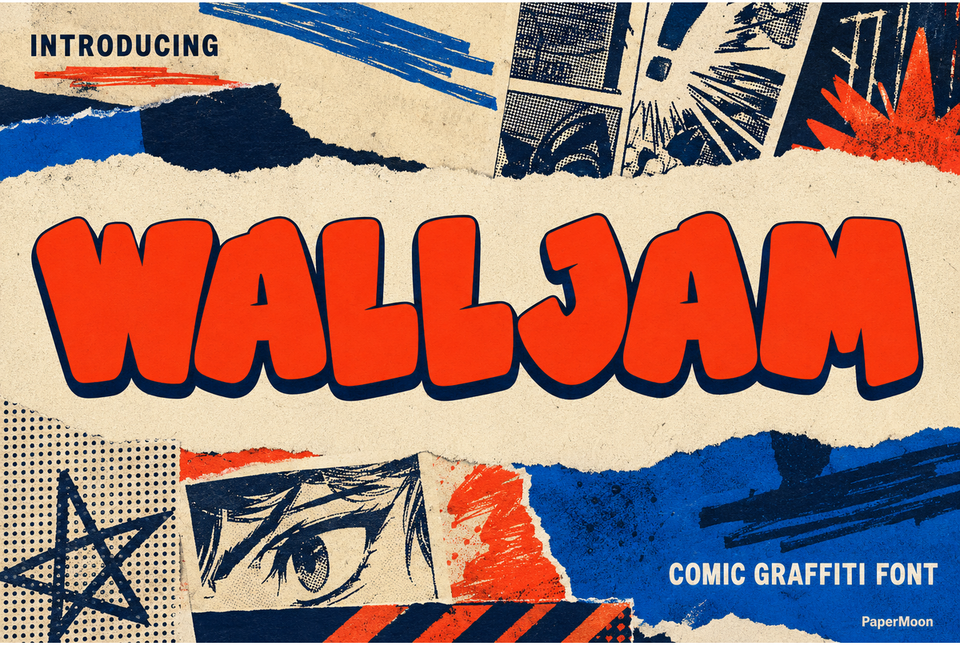
WallJam - Comic Graffiti Display Font Duo with Built-in 3D Shadow
WallJam is a comic graffiti display font duo built for designers who want loud, hand-drawn lettering that still feels friendly. Chunky capitals, a bouncy rhythm, and a marker-influenced energy give every headline the look of a true street art font, while the playful comic-book attitude keeps it charming rather than aggressive. As a street art display font, WallJam works best at poster and banner sizes, where its irregular hand-painted texture can really show.
What it is: WallJam is a font duo in the truest sense: two coordinated styles designed to work together. WallJam Regular is the solid comic book font base, a bold font with high-impact letterforms and an irregular, hand-painted texture that keeps headlines looking handcrafted rather than mechanical. WallJam Shadow is the same lettering with a built-in 3D drop shadow, so this 3d shadow font gives you instant depth in a single pass with no extra effect layers. Stack the shadow style over the regular style for a true dimensional poster look, or use the shadow style alone when you want the pop without the setup work. Every outline was drawn by hand and refined for a consistent, authentic urban graffiti font feel.
Key Features: Each style carries 236 glyphs covering Basic Latin, Latin-1 Supplement, and Western European punctuation, plus common math and currency signs, the numero sign, and the trademark symbol. Standard fi and fl ligatures are built in through OpenType GSUB features, and GPOS kerning keeps letter spacing balanced at any size. The fonts use installable embedding, so they install cleanly on Mac and PC. This is a hand drawn font through and through. A hand drawn display font like this one keeps its personality whether it is set at huge poster scale or small label size, and it is a chunky lettering font that stays readable even in tight spaces.
Applications: As a comic graffiti font and playful display font, WallJam suits projects across almost every format. It shines as a poster font for event flyers and album art, and as a sticker font for die-cut packs and badges. As a streetwear font it gives apparel and merchandise graphics instant attitude, making it a natural streetwear branding font for small labels. It is also a natural kids font for party invitations and classroom projects. A comic book lettering font at heart, it suits comics, zines, and playful branding for small businesses. Game developers can use it as a game font and gaming hud font for HUD titles and menus, and content creators will find it a dependable youtube thumbnail font for high-engagement videos. That youtube thumbnail display font quality comes straight from the built-in shadow style, which adds depth without extra work. As a branding font and logo font it gives wordmarks a confident, hand-painted identity, and the playful font attitude carries over to packaging, product labels, and social media graphics with genuine cartoon font energy and chunky font presence.